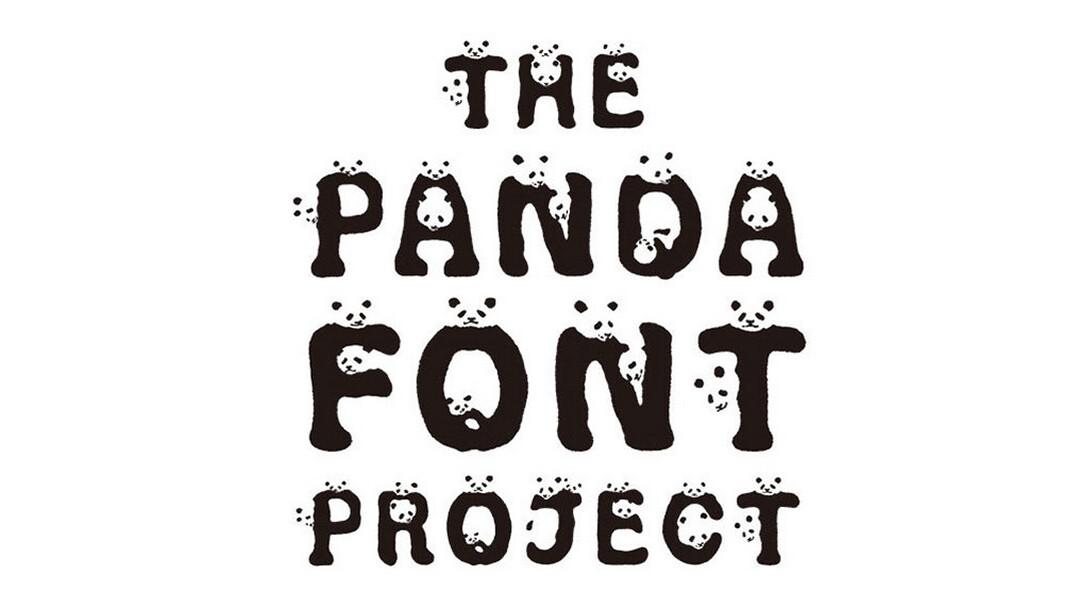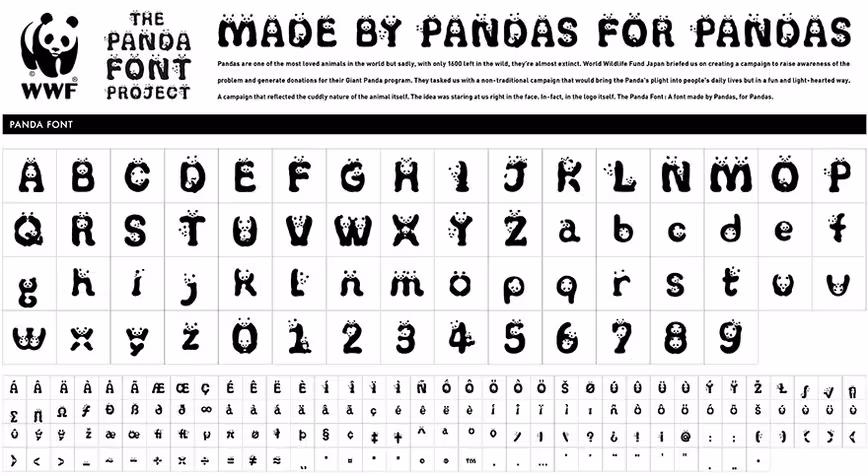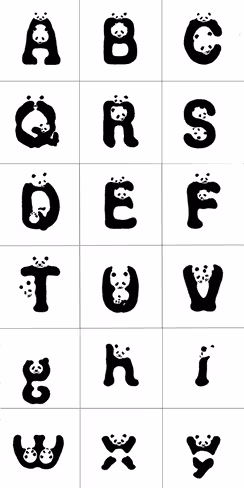
New Panda font is designed to help protect beloved animals
Extinction sucks and no one wants that to happen to the panda.
Rare members of the bear family, the Giant Panda resides in bamboo forests high in the mountains of western China. They are highly prized throughout the world for their beauty and their peaceful natures.
Despite lacking natural predators in the wild, they are endangered because their habitat is being systematically destroyed.
Pandas require a diet almost totally consisting of bamboo and must eat between 26 and 84 pounds of the stuff every day, while at the same time their forest habitat is decimated by roads and railroads to support the Chinese economy. Such conditions isolate populations, interfere with breeding and deprive the bears of food.
With about 1,864 pandas left in the wild, the World Wildlife Fund Japan decided to create a new Panda font to raise awareness about their dire situation and to help encourage donations to the organization’s Giant Panda program. Designed in conjunction with ad agency Ogilvy & Mather Japan, each character features a panda head.
Despite the Chinese government’s efforts to protect the panda — it has created 50 panda reserves throughout the country — only 61 percent of the population actually benefits from that protection, the WWF says.